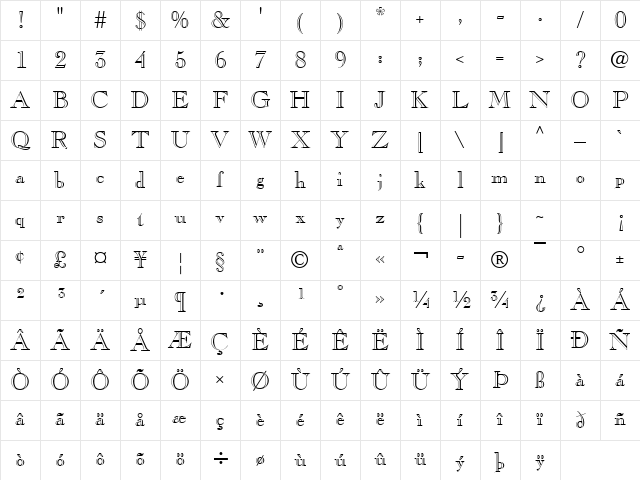
Crescent Regular Free Font
Crescent Regular
Design Context for Crescent
Crescent is a composed and adaptable typeface that performs quietly and consistently across a wide range of design contexts.